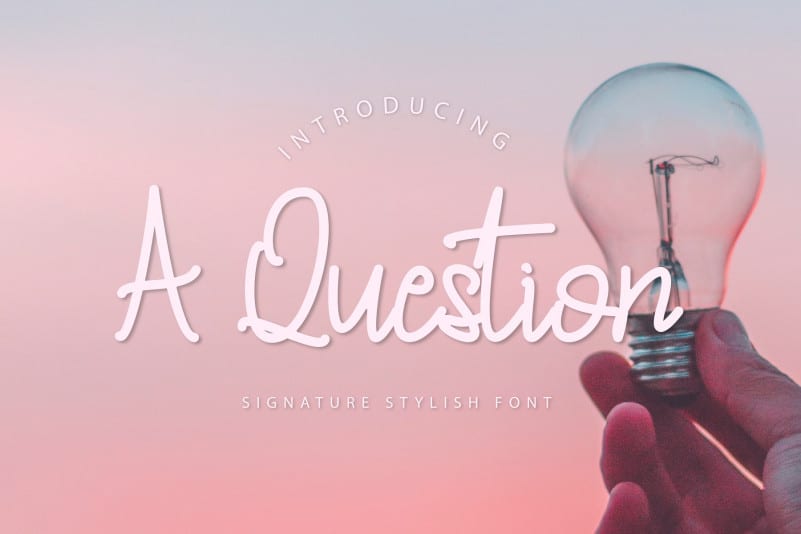
A Question – Handwritten Font
A Question – Handwritten Font is a stylish signature font perfect for a projects that require handwriting.
A Question is suitable for social media posts, advertisements, logos & branding, invitations, product design, photography, watermarks, labels, wedding designs, product packaging, any event that requires a handwritten look.